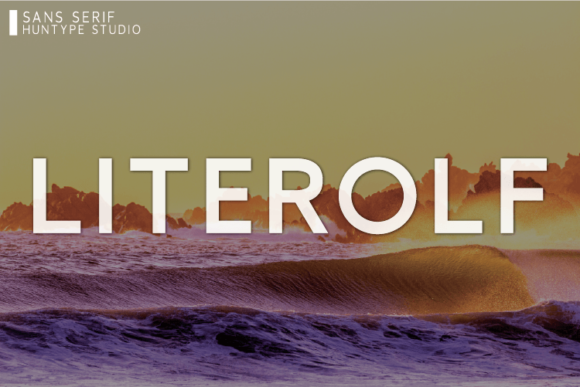
Embrace the Exquisite Charm of Literolf: A Sans Serif Font That Speaks Volumes
In the realm of typography, a font is like a melody, conveying a message with every curve and line. Meet Literolf, a sans serif symphony that captivates with its clean lines and modern elegance. Experience the profound impact a font can have on your creations as Literolf transforms your words into a compelling visual narrative.
Crafted by the masters at Huntype, Literolf is a font of understated beauty and versatility. Its simple yet striking structure makes it a perfect choice for logos, branding, and web headings, where every letter commands attention without overwhelming the message. Literolf's clean lines and smooth curves add a touch of sophistication, ensuring your designs stand out from the crowd.
With Literolf, you're not just downloading a font; you're acquiring a storytelling tool. This font has the power to evoke emotions, set the tone, and communicate your ideas with clarity and impact. Whether you're crafting a timeless logo, building a brand identity, or creating captivating web content, Literolf is your trusted companion, delivering messages with flair and finesse.
Immerse yourself in the world of Literolf and discover a font that's not just a tool but an art form. Let Literolf be your muse as you weave tales through typography, leaving an indelible mark on your audience. Unleash your creativity and experience the transformative power of this remarkable sans serif font.